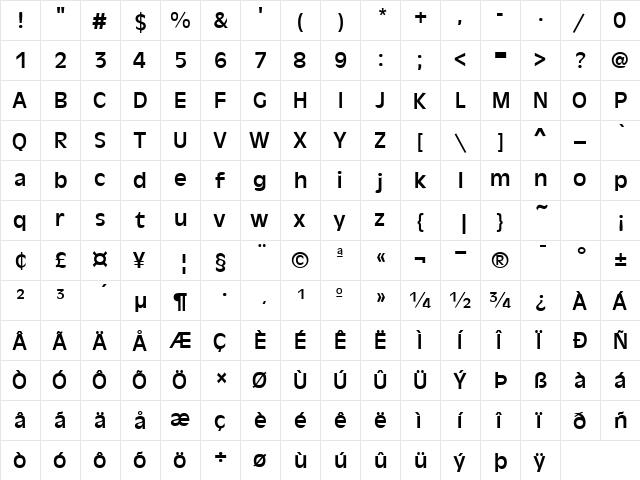
Holland Normal
Design Context for Holland Typeface
Holland takes a measured approach to typography — its balanced proportions and neutral character make it a reliable workhorse for both digital and print work.